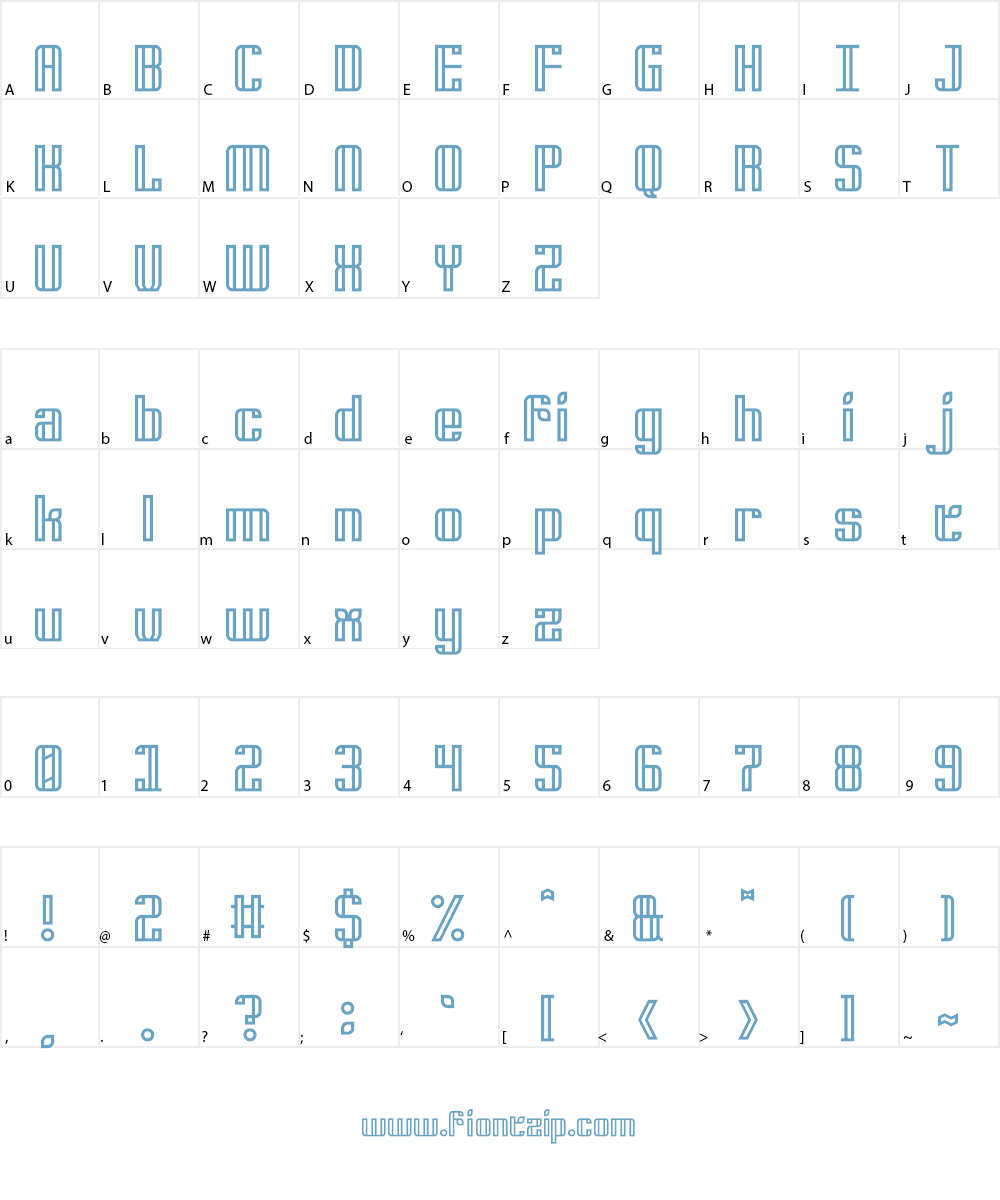
A slightly leafy engraving-style Decolike. Supports Danish, Dutch, English, Finnish, French, German, Hungarian, Icelandic, Italian, Norwegian, Polish, Portuguese, Spanish, and Swedish!